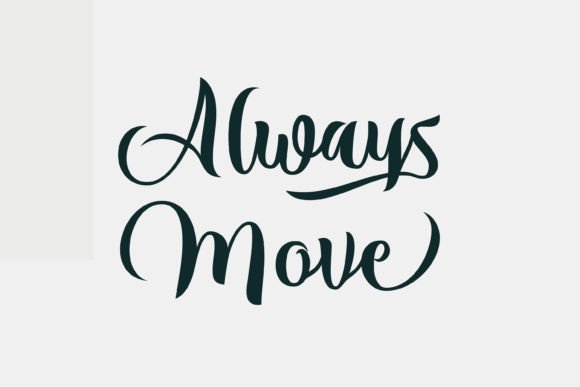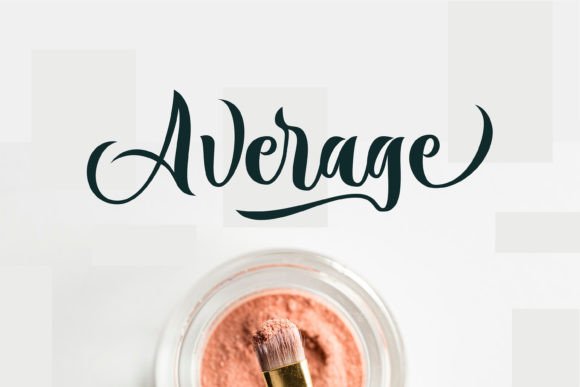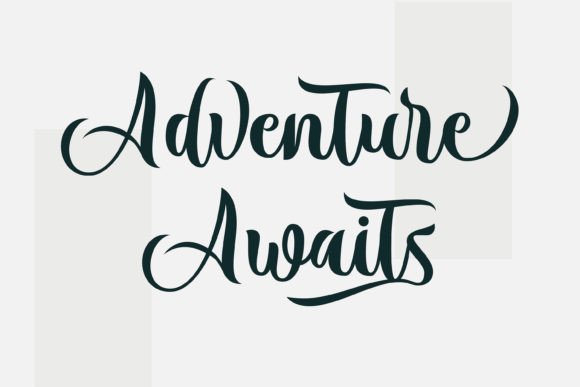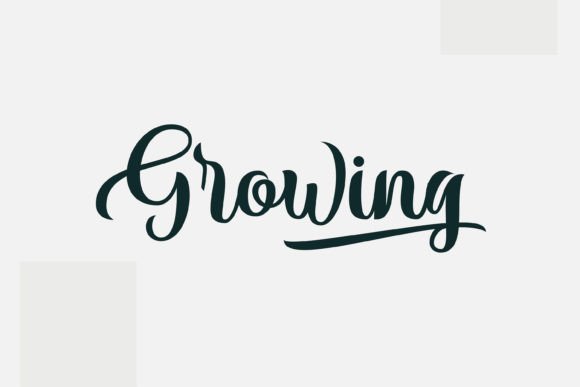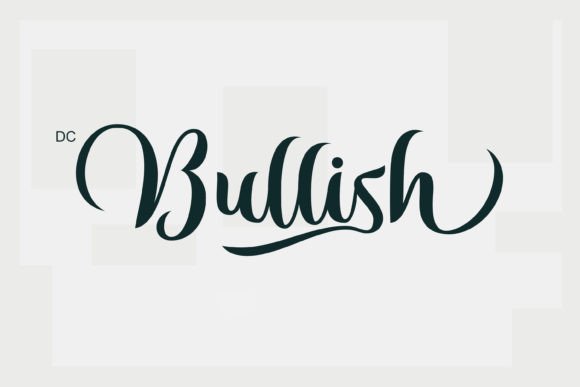
Bullish Font: Elevate Your Designs with Modern Script Calligraphy
In the world of typography, a good font can make all the difference in creating stunning visual designs. For designers and crafters looking for a modern script calligraphy typeface that exudes elegance and sophistication, Bullish Font is an excellent choice. This beautiful font features sharp characters and unique swashes that allow you to create breathtaking lettering in no time.
What Makes Bullish Font Stand Out?
Bullish Font is a modern script calligraphy typeface that boasts sharp, clean lines and distinctive swashes. These swashes add a touch of flair to your designs, making them perfect for a wide range of applications, from invitations and labels to logos and magazines. The font’s unique characteristics make it an excellent choice for designers looking to add a personal touch to their work.
Bullish Font is incredibly versatile and can be used for various design projects, including:
- Invitations: Create stunning wedding invitations, birthday party invites, or any other special occasion with Bullish Font.
- Labels: Design beautiful labels for products, gifts, or storage containers.
- Logos: Use Bullish Font to create elegant and sophisticated logos for businesses or personal brands.
- Magazines and Books: Add a touch of elegance to your publications with Bullish Font.
- Greeting/Wedding Cards: Create heartfelt greeting cards or wedding cards with Bullish Font.
- Packaging: Design eye-catching packaging for products, including fashion and beauty items.
- Fashion and Make-up: Use Bullish Font to create stunning branding materials for fashion and beauty businesses.
- Stationery: Design beautiful stationery, including notebooks, journals, and letterheads.
- Novels: Add a touch of sophistication to your novel’s cover design or interior with Bullish Font.
Bullish Font is PUA (Private Use Area) encoded, which means you can access all the glyphs and swashes with ease. This encoding allows you to unlock the full potential of the font, making it easy to create stunning designs without any hassle.
Why Choose Bullish Font?
There are many reasons why Bullish Font stands out from the rest:
- Unique and Modern Design: Bullish Font features a unique and modern script calligraphy design that will elevate your designs.
- Elegant Swashes: The font’s swashes add a touch of elegance and sophistication to your designs.
- Versatile: Bullish Font can be used for a wide range of design projects, making it a great addition to your font library.
- Easy to Use: The font is PUA encoded, making it easy to access all the glyphs and swashes.
In conclusion, Bullish Font is an excellent choice for designers and crafters looking for a modern script calligraphy typeface that exudes elegance and sophistication. With its unique swashes, sharp characters, and PUA encoding, Bullish Font is perfect for a wide range of design projects. Whether you’re creating invitations, labels, logos, or any other type of design, Bullish Font is sure to elevate your work and make it stand out.